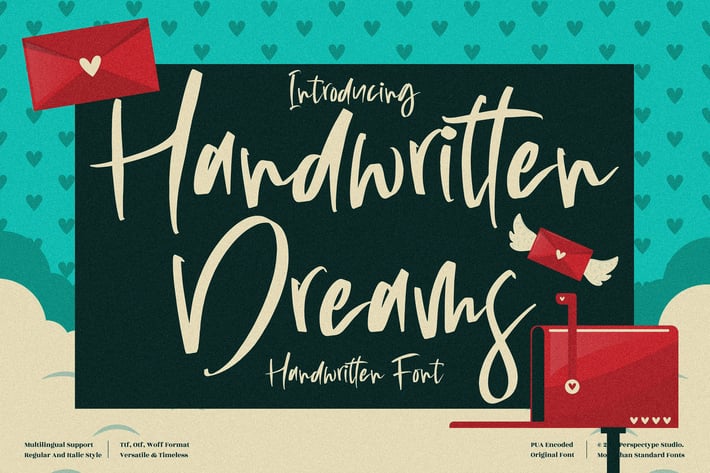
Handwritten Dreams Font
Handwritten Dreams is a cheerful, modern script that pairs soft, rounded strokes with a playful bounce for an instantly friendly feel. Its smooth curves read beautifully at both headline and caption sizes, adding warmth and personality to anything from quotes to product cards. Use it whenever you want cozy, heartfelt vibes without sacrificing readability.
+ Modern handwritten script with a natural, bouncy baseline
+ Uppercase & lowercase, numerals, punctuation
+ Ligatures & stylistic alternates for authentic variety
+ Beginning/ending swashes for effortless flourishes
+ Multilingual support (basic Latin + extended characters)
+ Optimized kerning and smooth curves for clean output